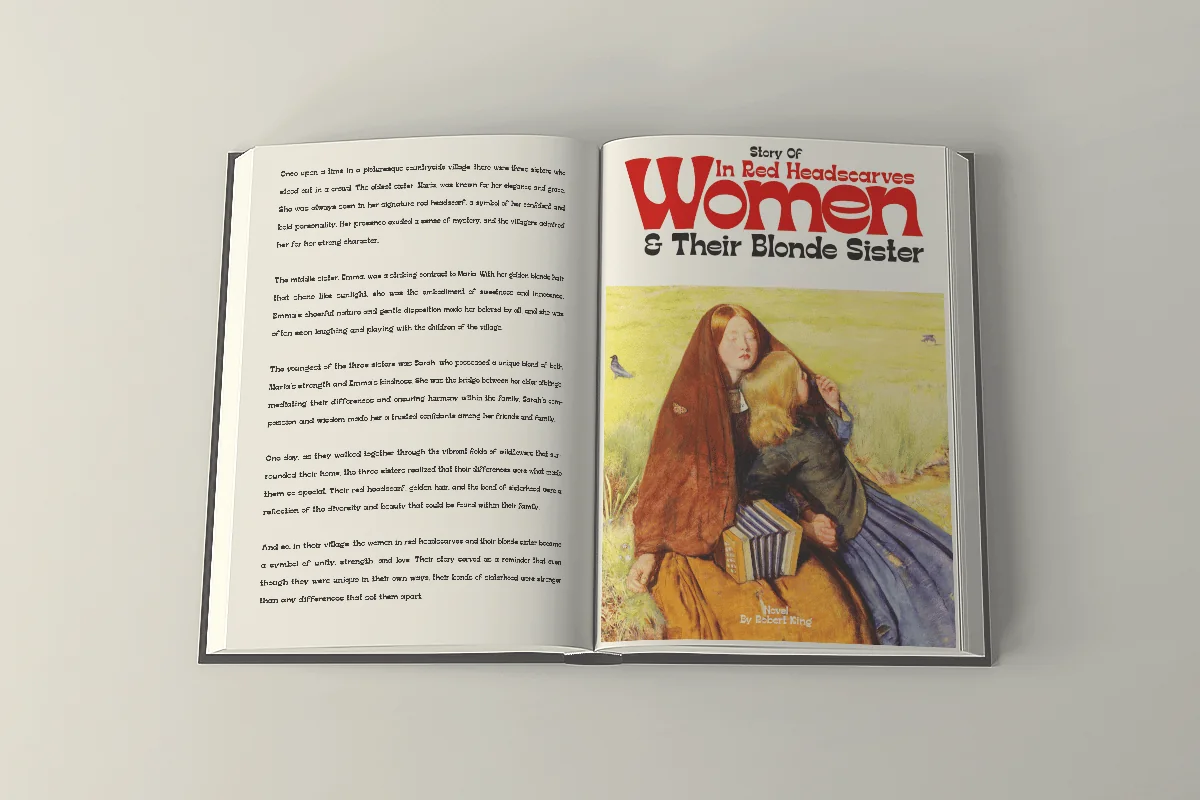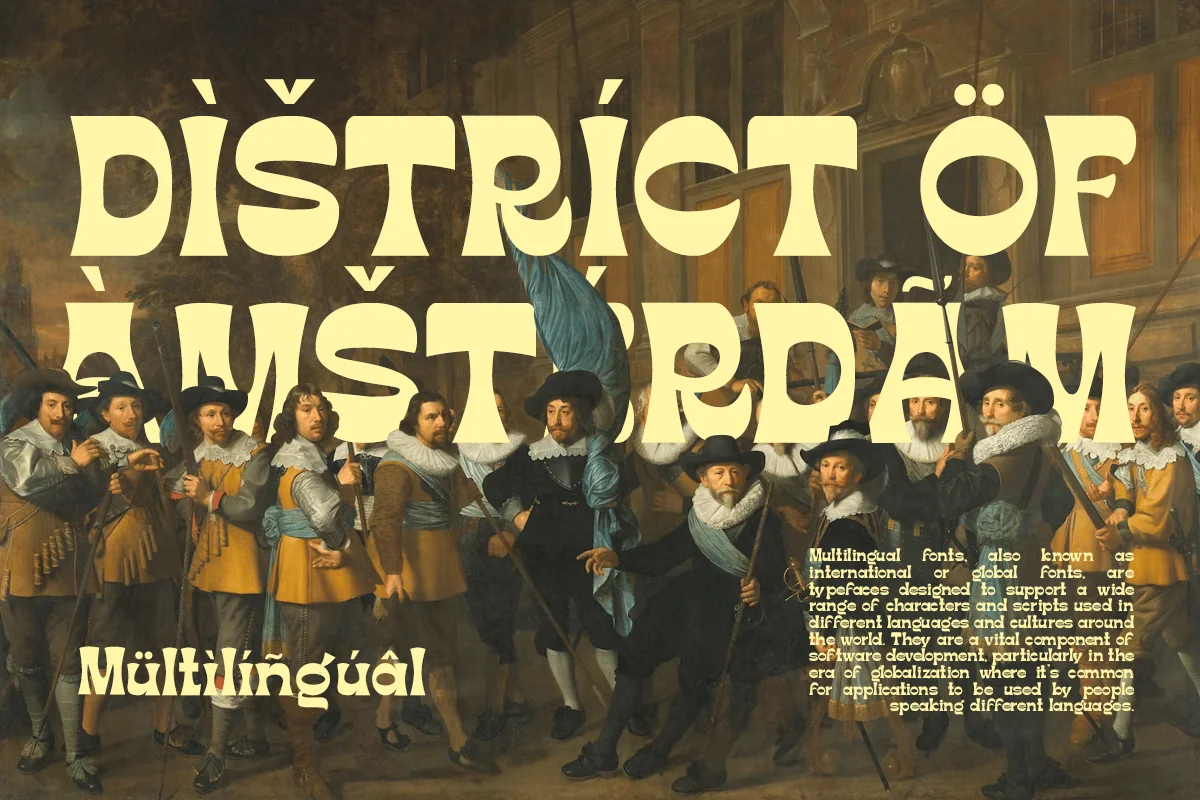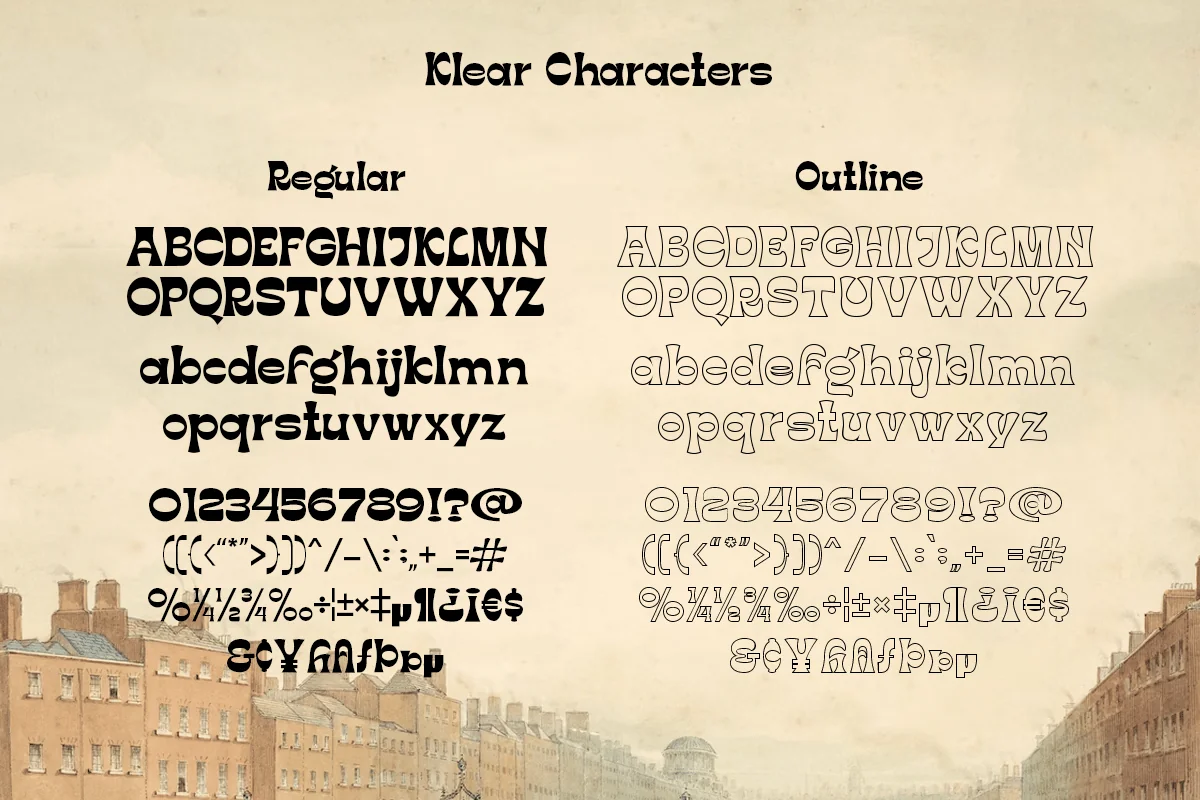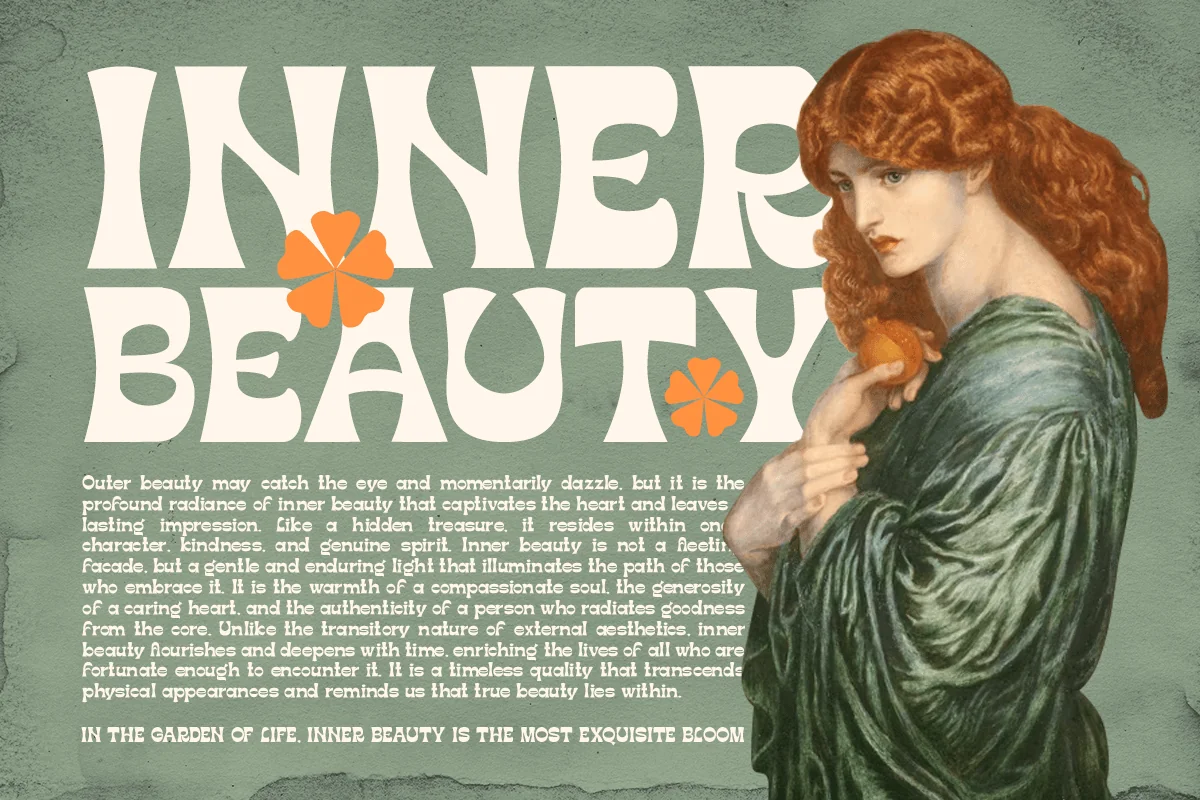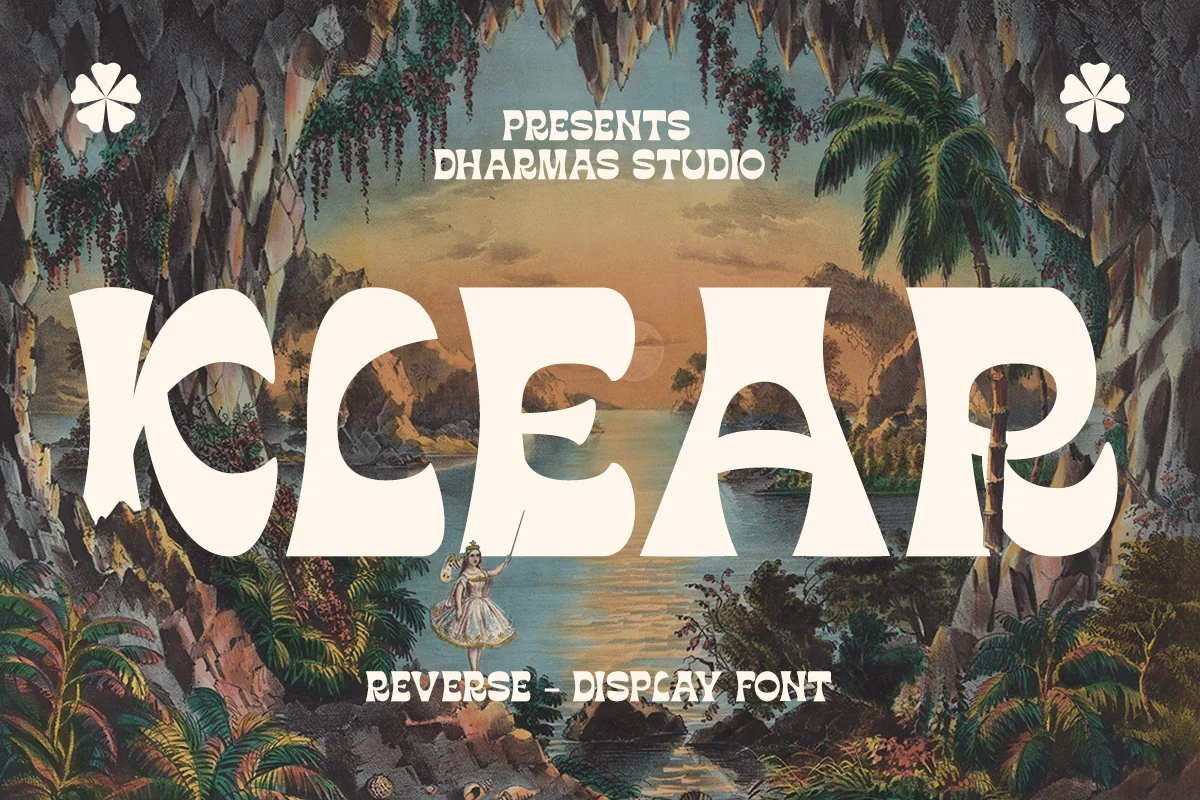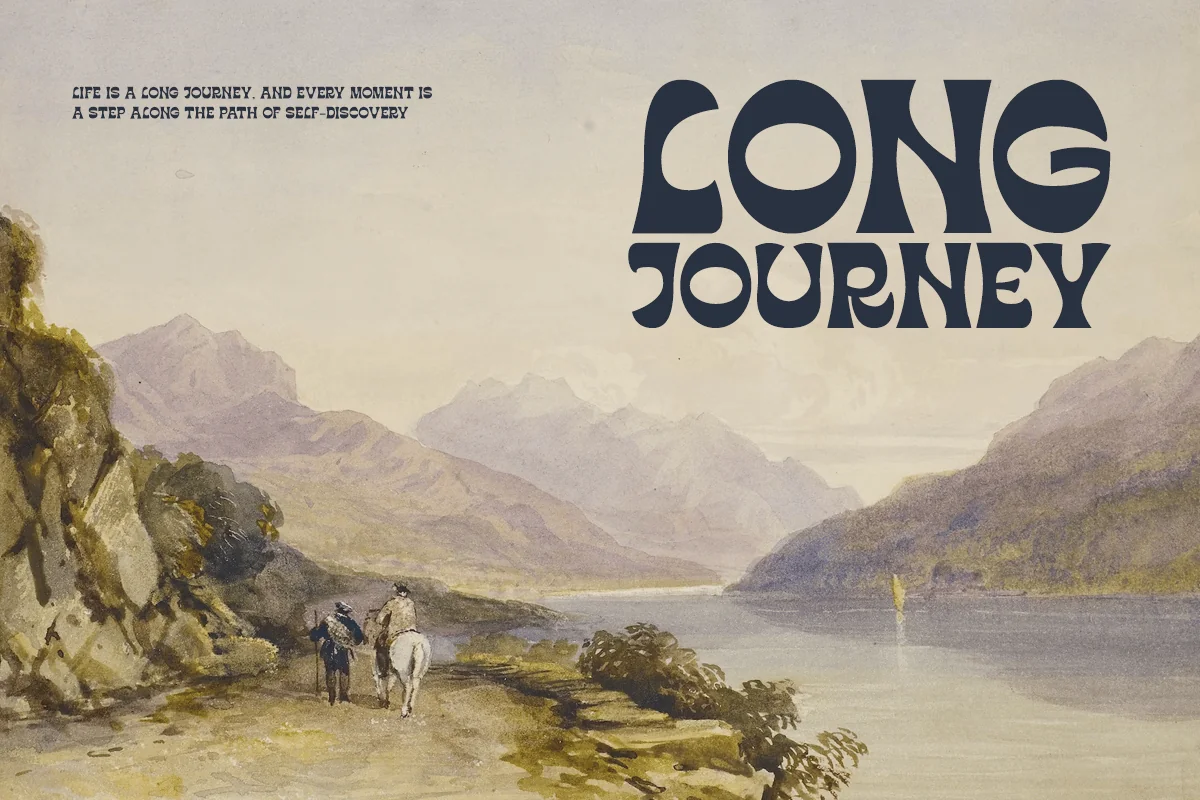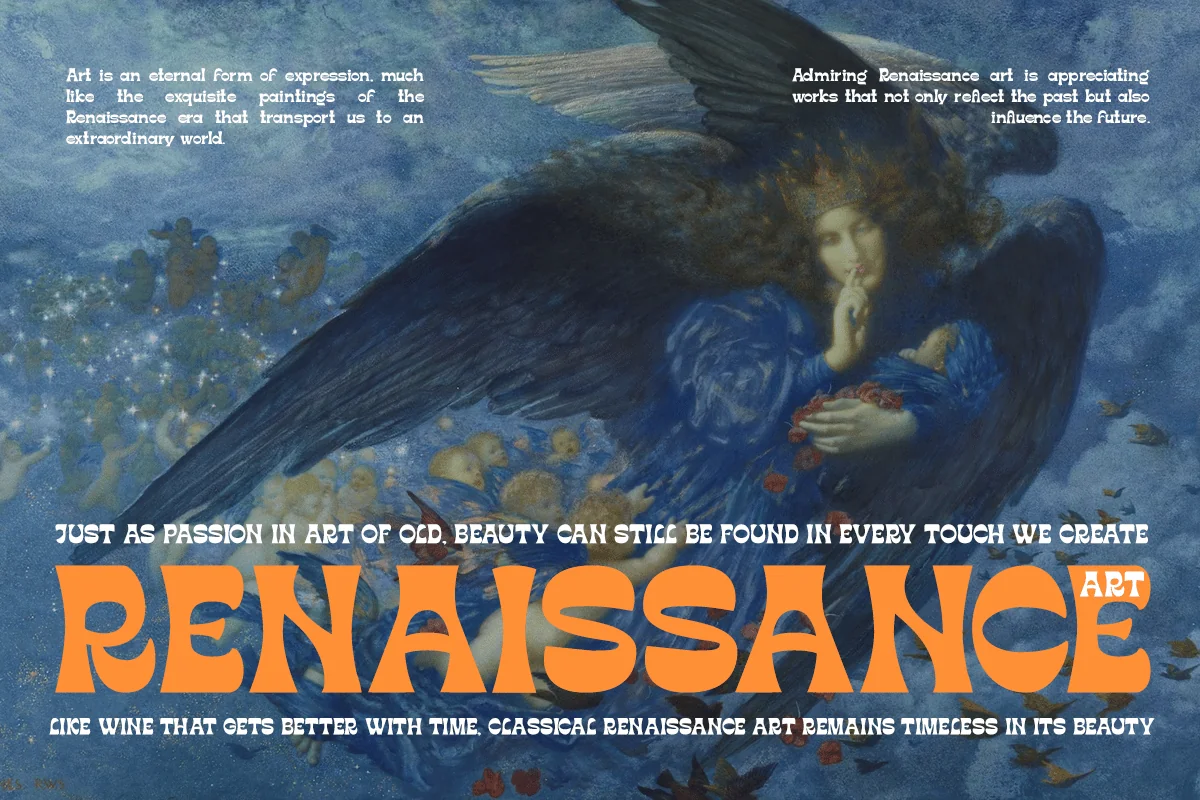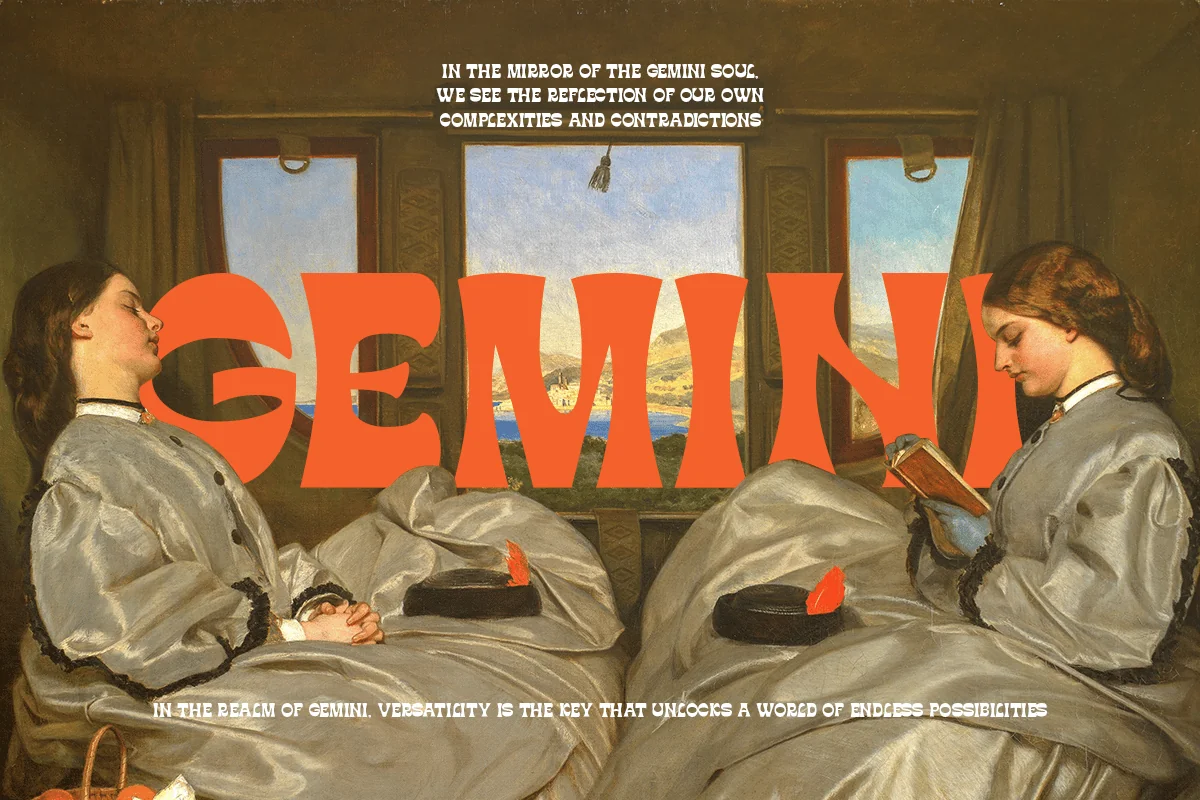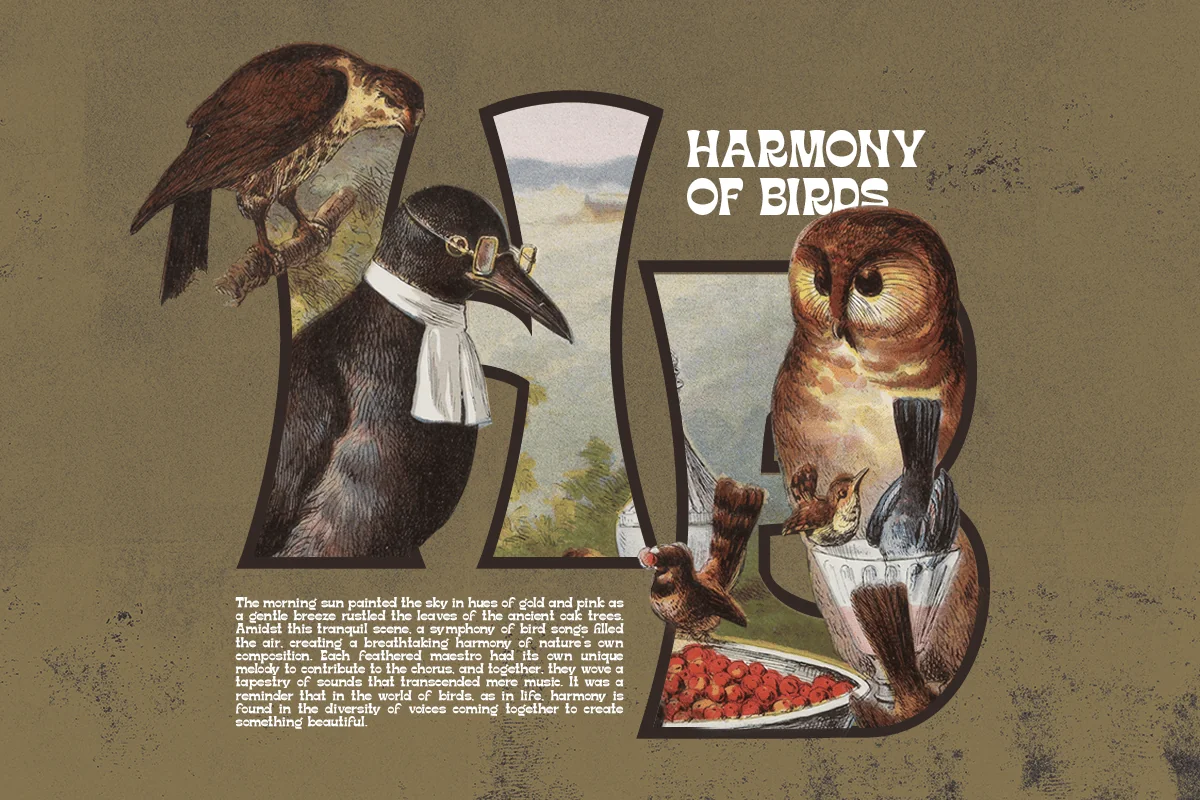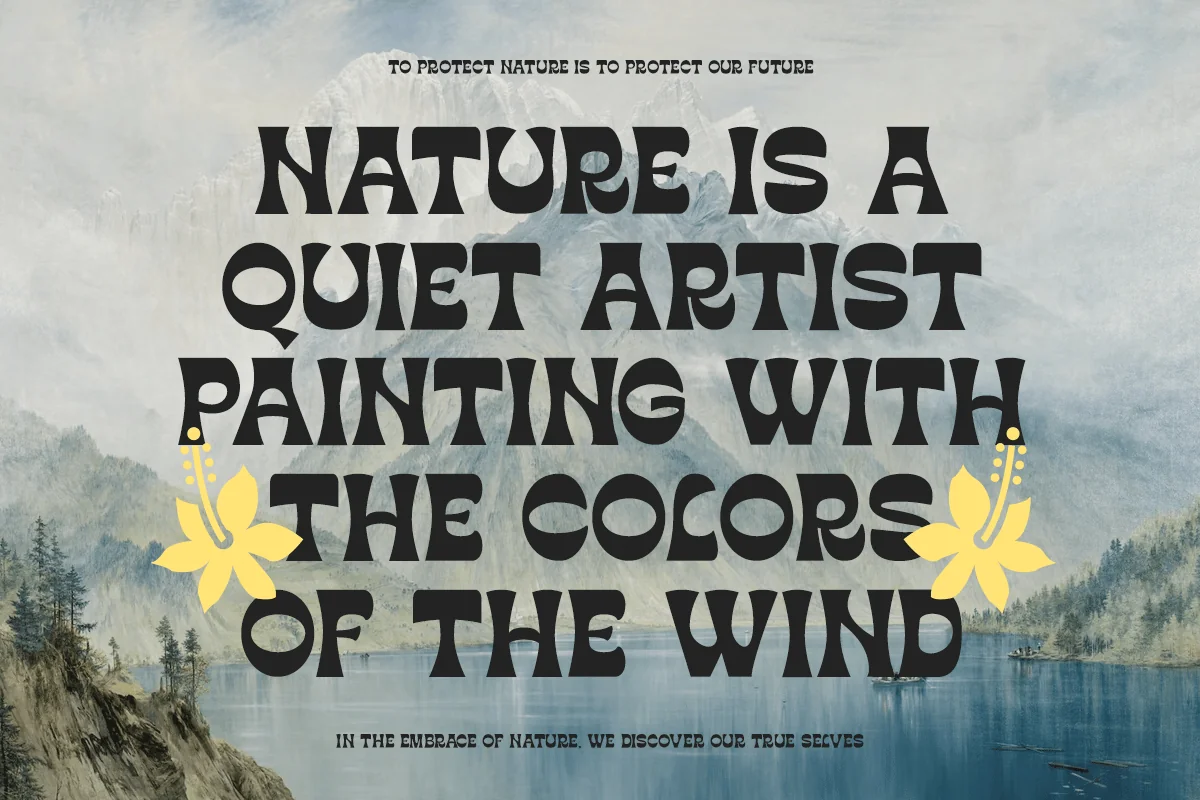
Klear – Modern Logo Font
Introducing Klear – A typeface that’s turning design conventions on its head! Inspired by the graceful flow of art nouveau, Klear is a perfect blend of quirkiness and elegance.
Whether you’re working on a formal project or something more avant-garde, Klear has you covered. With two styles to choose from – Regular and Outline, Klear gives your creativity a fresh canvas to shine
- Regular and Outline Family
- Unique Letterforms
Language Support: Danish, English, Estonian, Filipino, Finnish, French, Friulian, Galician, German, Gusii, Indonesian, Irish, Italian, Luxembourgish, Norwegian Bokmål, Norwegian Nynorsk, Nyankole, Oromo, Portuguese, Romansh, Rombo, Spanish, Swedish, Swiss-German, Uzbek (Latin)